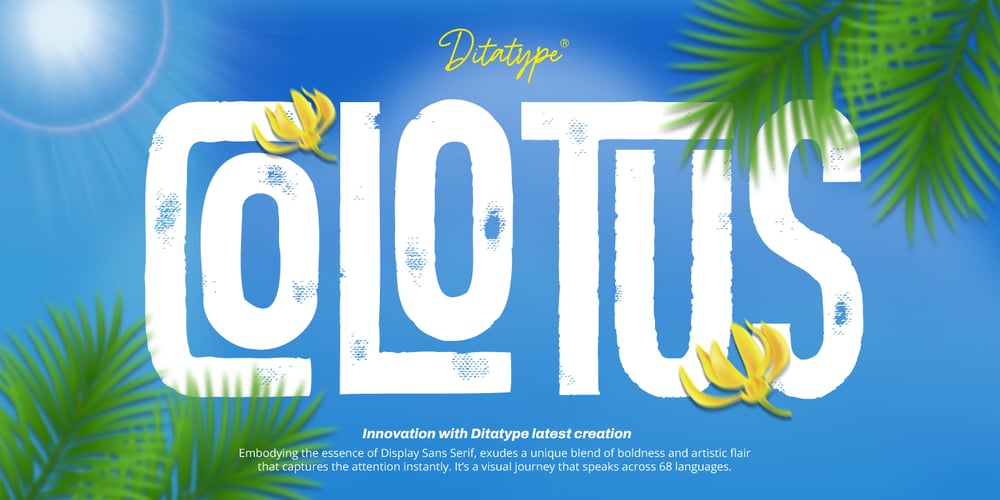
Colotus Font Family was designed by Donis Miftahudin and published by Ditatype. Colotus contains 1 styles and family package options. Colotus is a striking sans-serif display font that immediately captures the eye. The characters in Colotus is made in bold and solid square forms, imparting a sense of reliability and authority. However, what truly sets Colotus apart is its subtle brush detail that adds a touch of handcrafted charm. This brush detail infuses the font with a sense of artistry, creating a captivating blend of contemporary design and organic creativity. In addition, you can also enjoy the features here.Features: Alternates Ligatures Multilingual Supports PUA Encoded Numerals and Punctuations Colotus fits in headlines, logos, posters, flyers, branding materials, print media, editorial layouts, and many more designs. Find out more ways to use this font by taking a look at the font preview.Thanks for purchasing our fonts. Hopefully, you have a great time using our font. Feel free to contact us anytime for further information or when you have trouble with the font. Thanks a lot and happy designing.